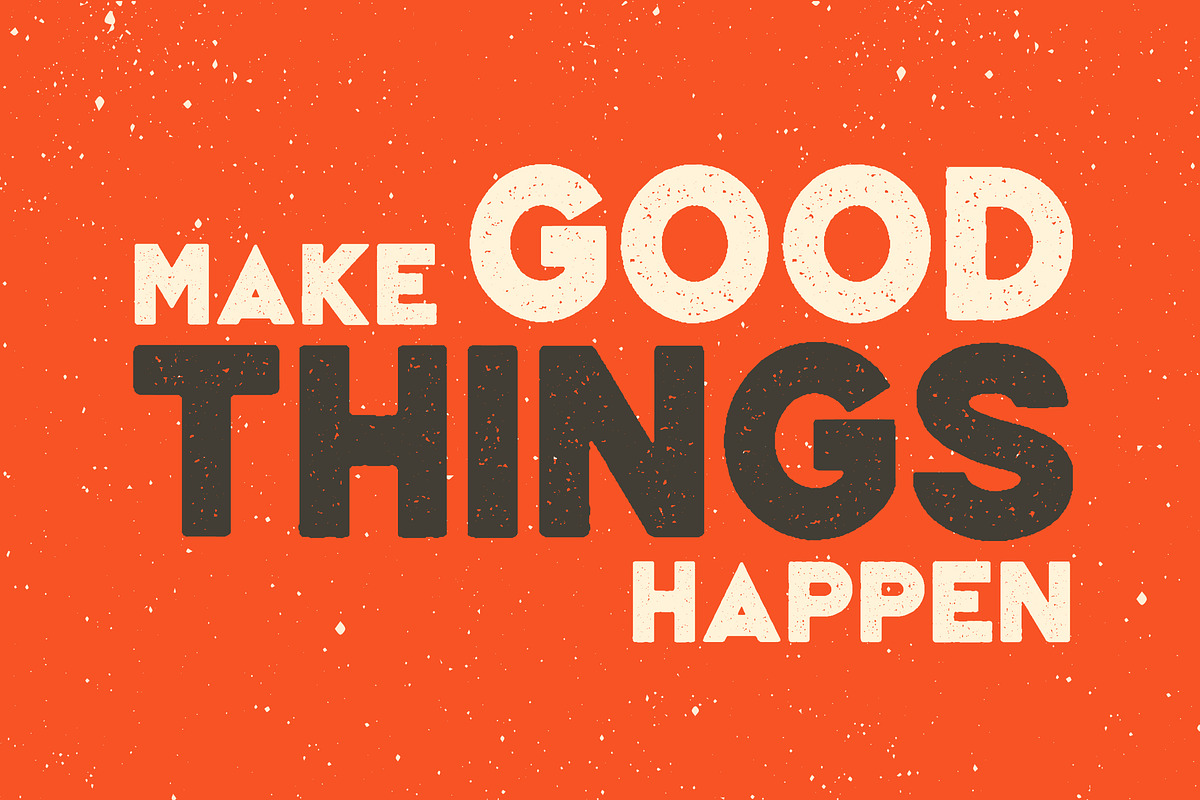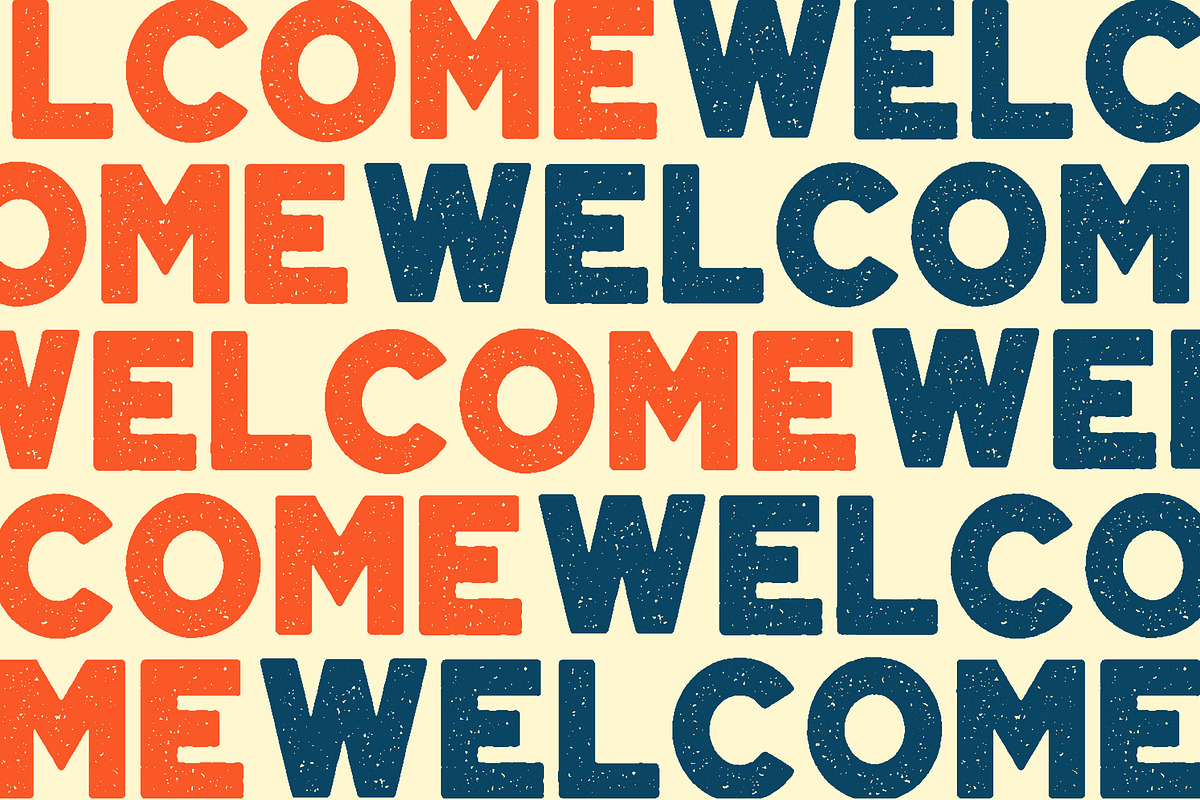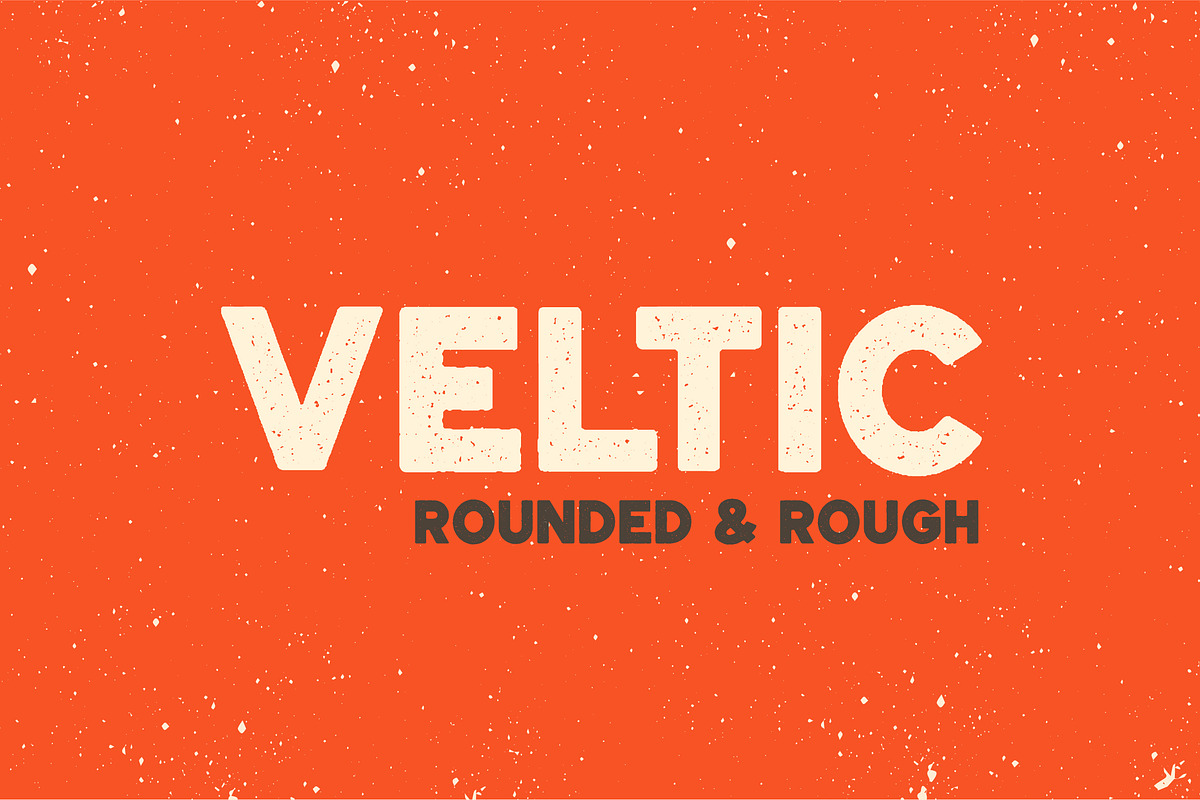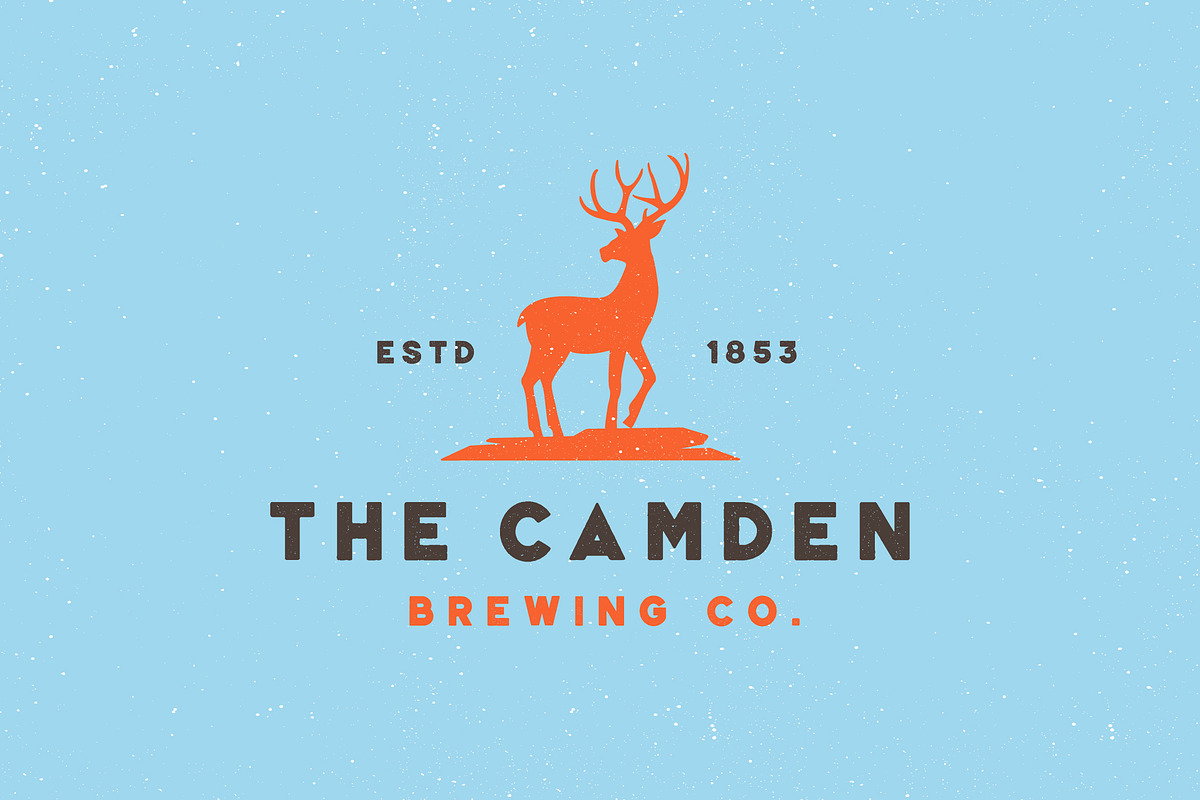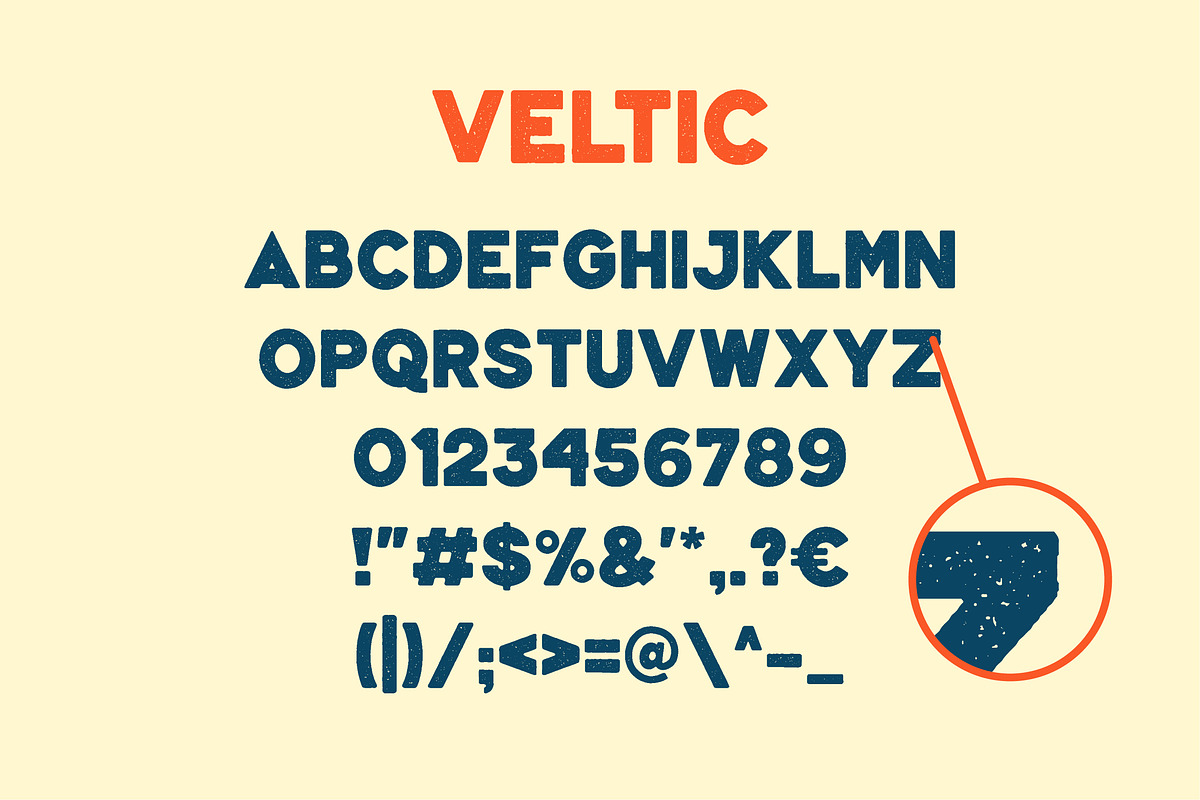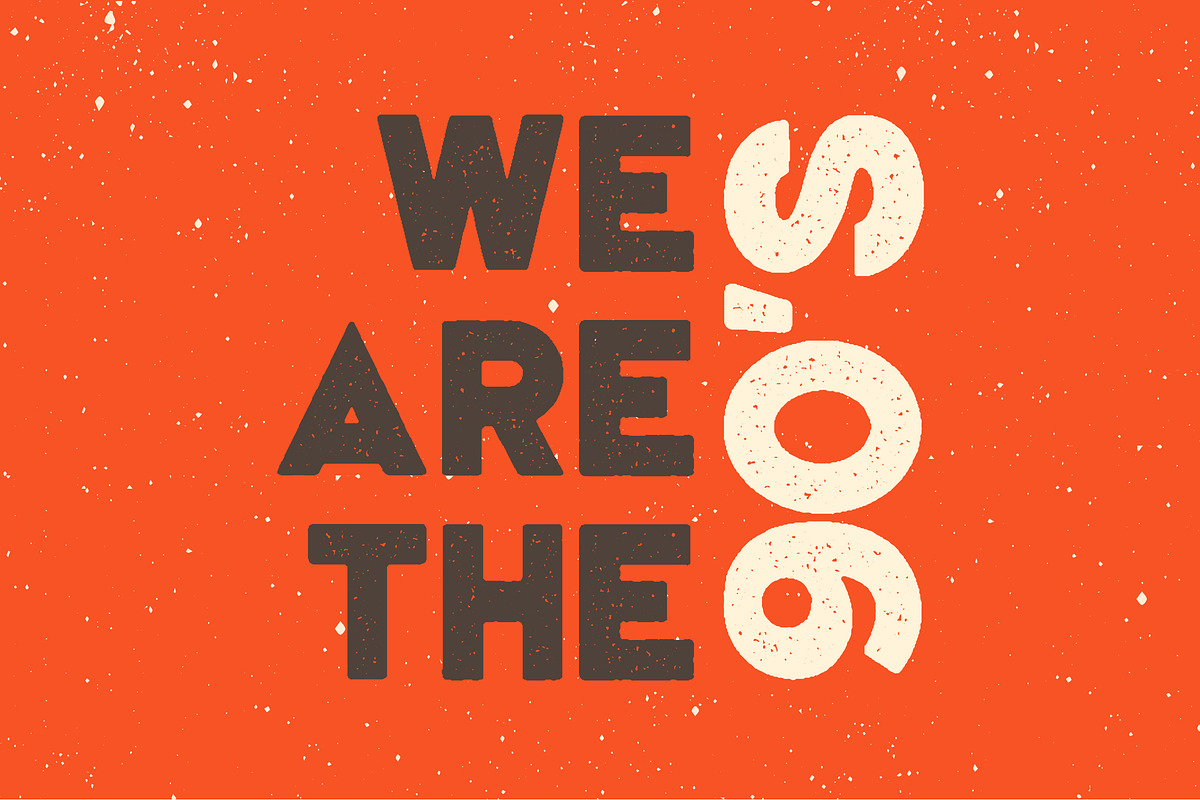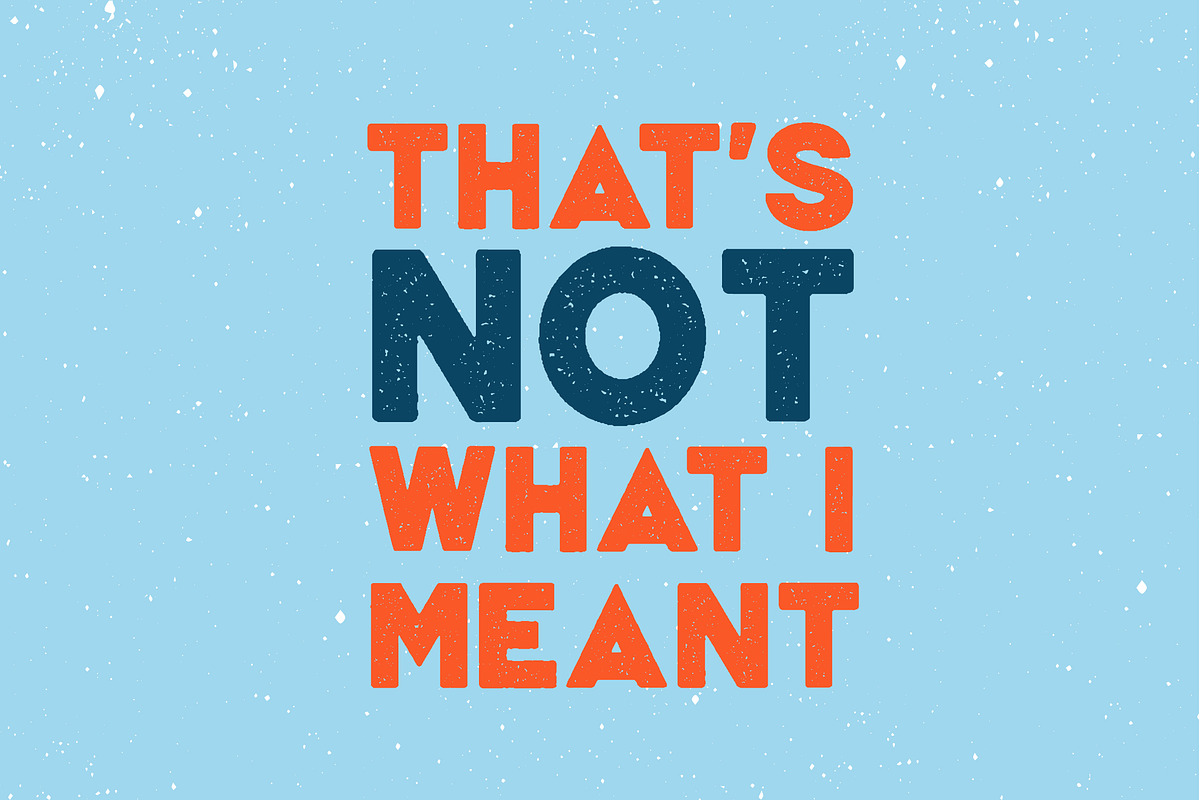
Veltic Typeface
Veltic is a new geometric sans font. It includes a strong semi-thick weight with uneven edges and a rough stamp of ink style.
It’s suitable for headers, branding, posters, packaging, titles and logos.
- It includes a strong semi-thick weight with uneven edges and a rough stamp of ink style.
Veltic Typeface by sancreastd. fits naturally into Branding, posters, packaging, typography.